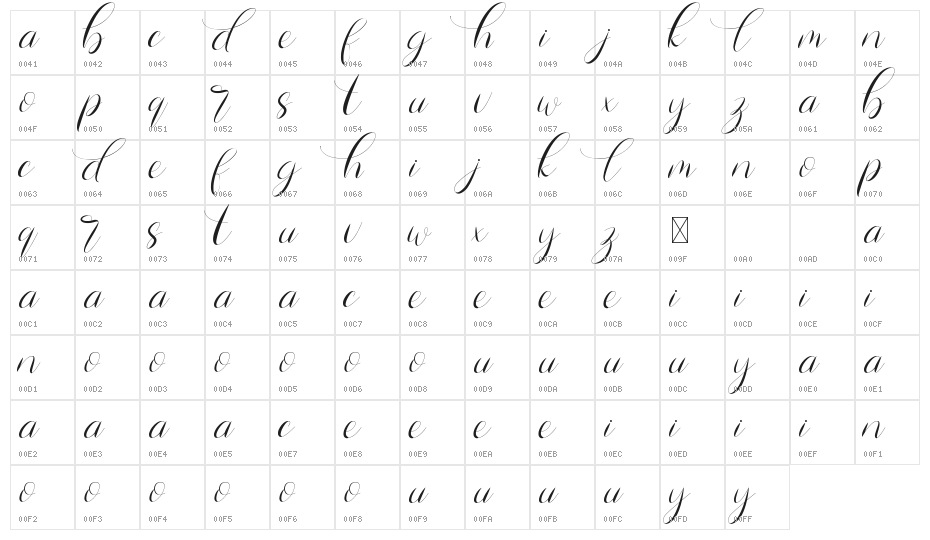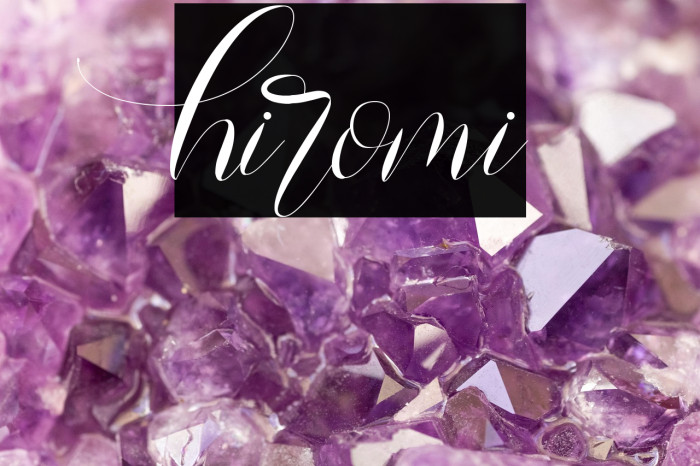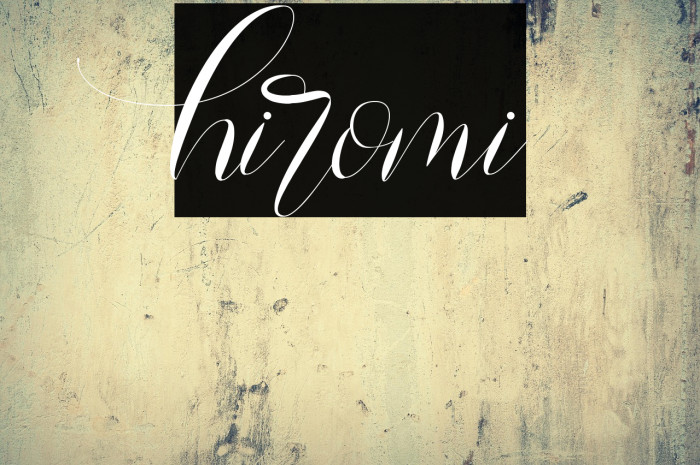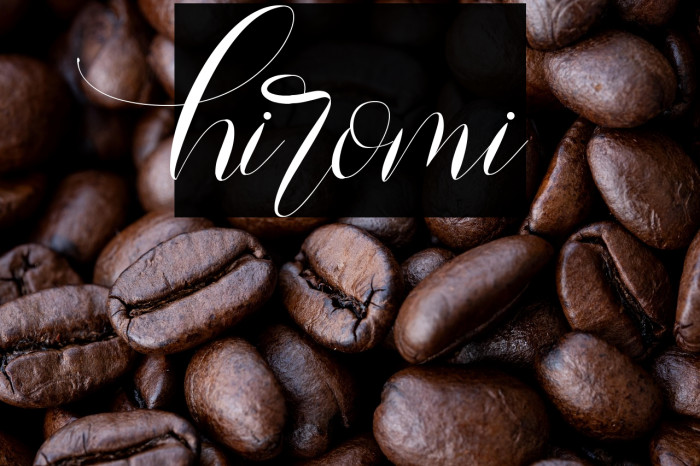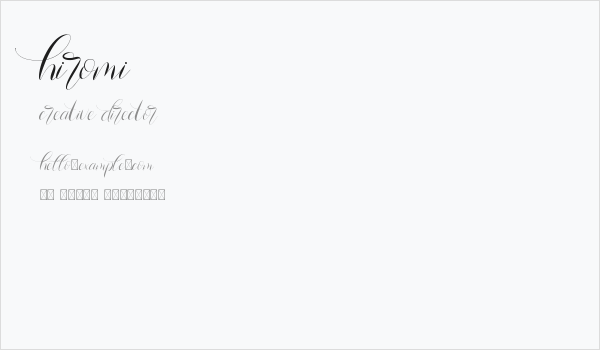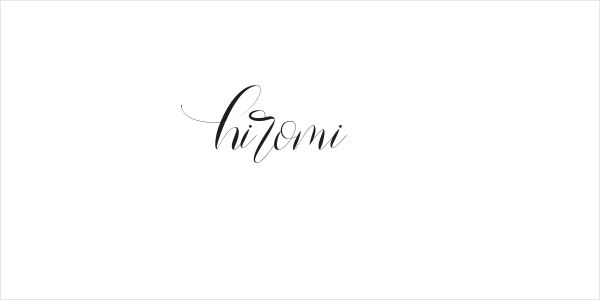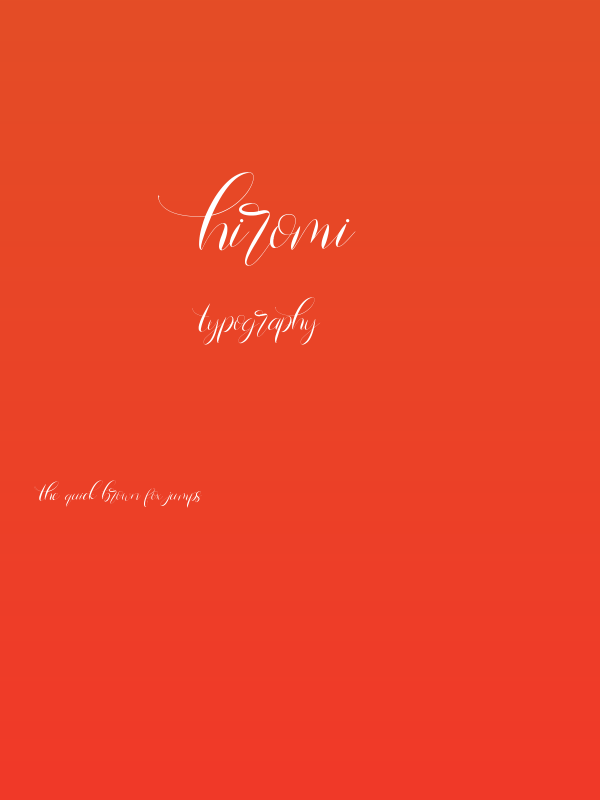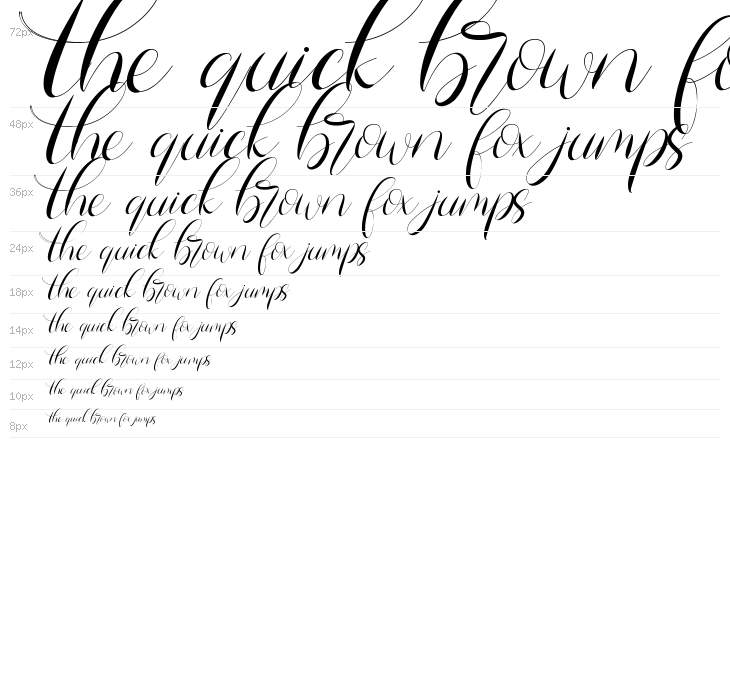
Hiromi Font
Hiromi Description
This font exudes elegance and sophistication with its flowing, cursive style. Each letter is intricately designed with delicate, sweeping lines that create a sense of movement and grace. The strokes are thin and fluid, giving the font a light and airy appearance. The characters are closely spaced, enhancing the seamless flow of the text. This script style is reminiscent of traditional calligraphy, with a modern twist that makes it suitable for contemporary design projects. The font's high contrast between thick and thin strokes adds to its visual appeal, making it stand out in any application.
| Proposed Projects | Ideal for wedding invitations, elegant branding, luxury packaging, and artistic projects. |